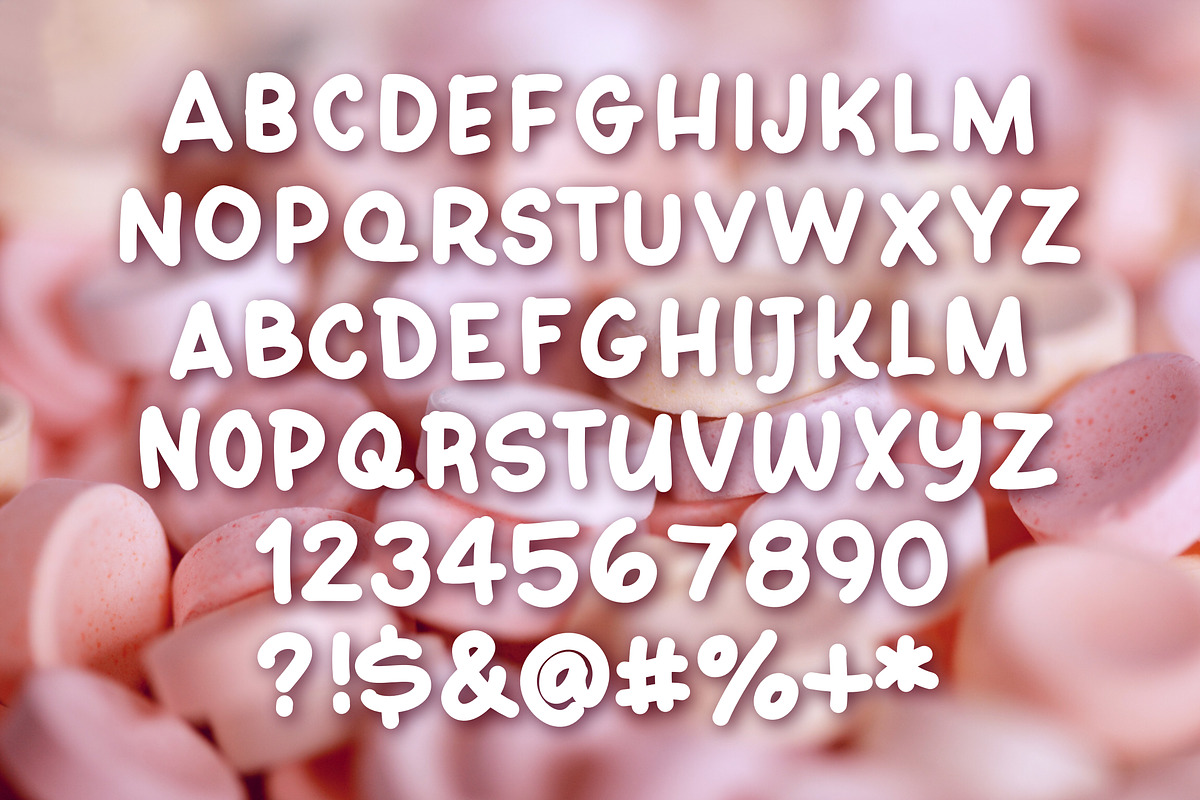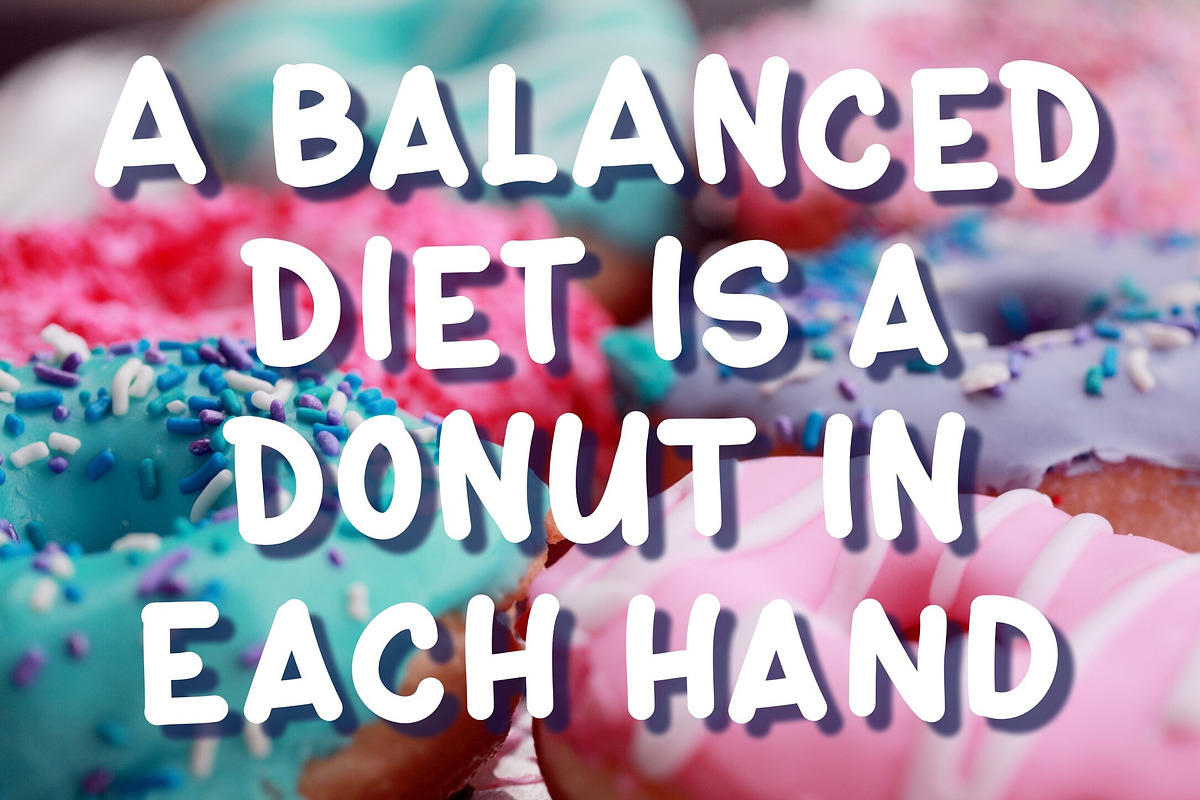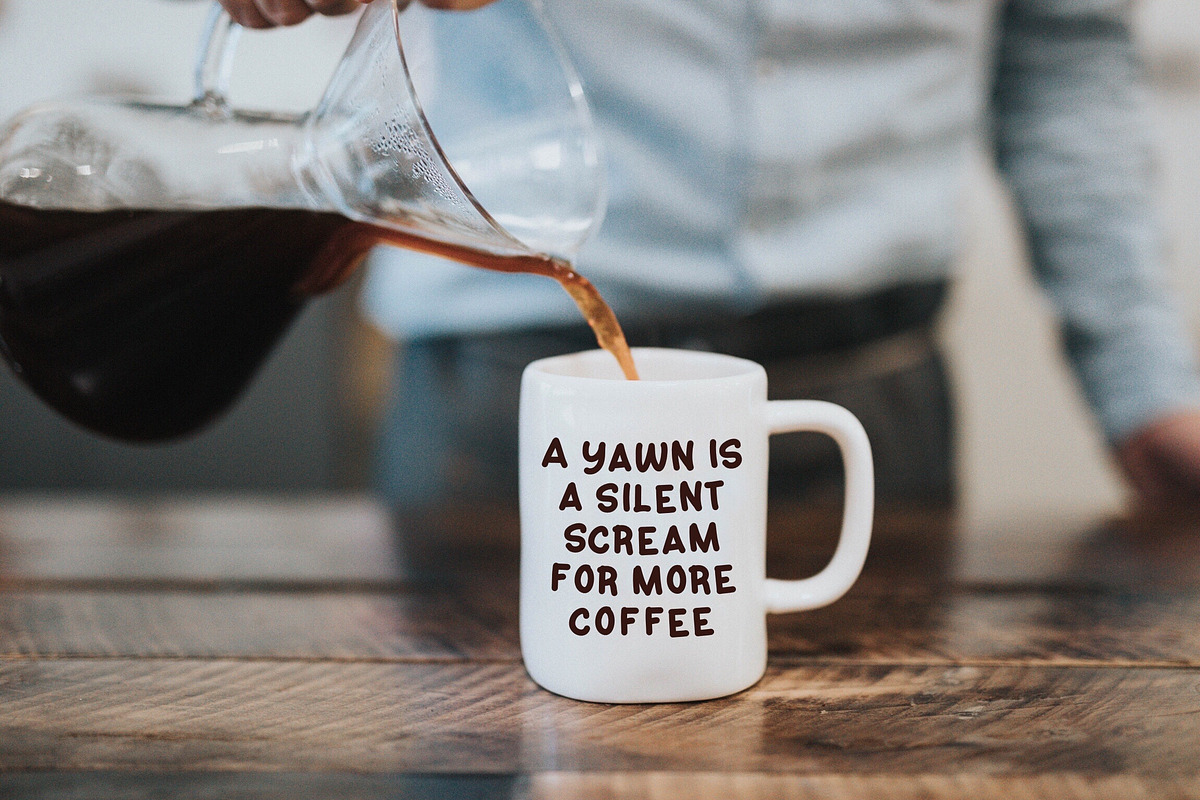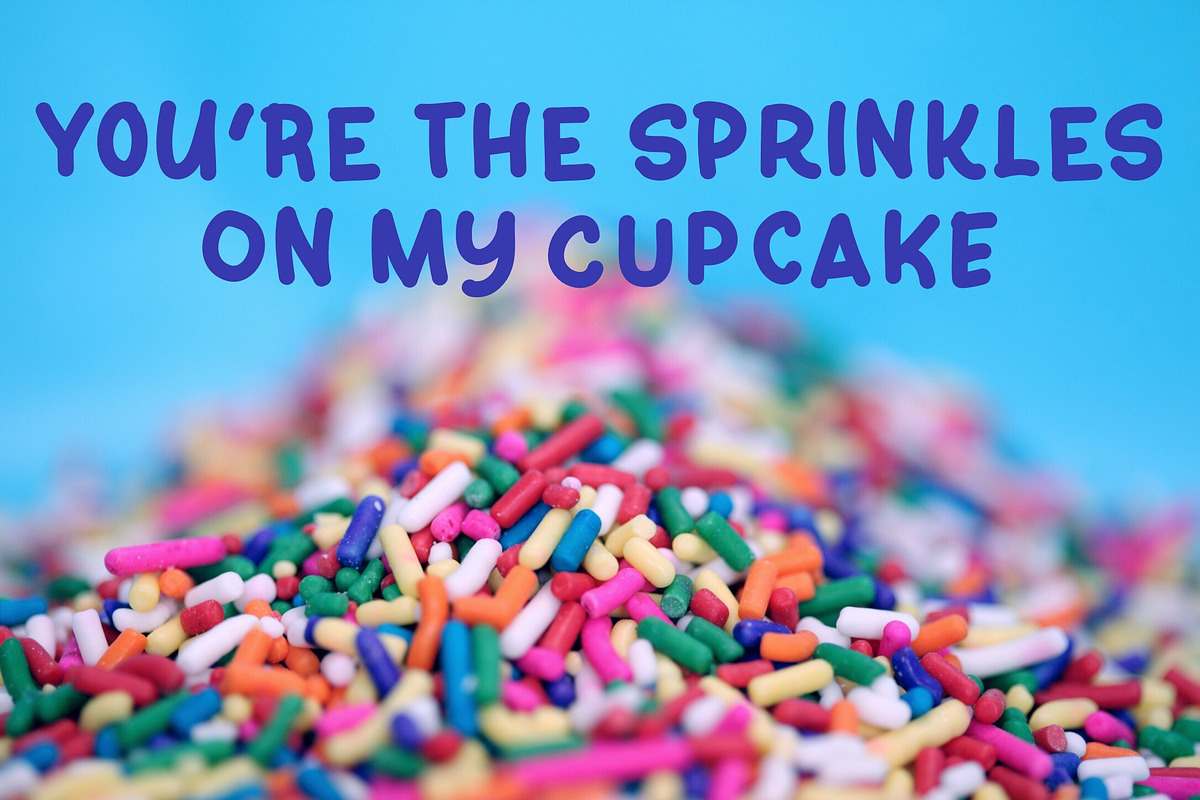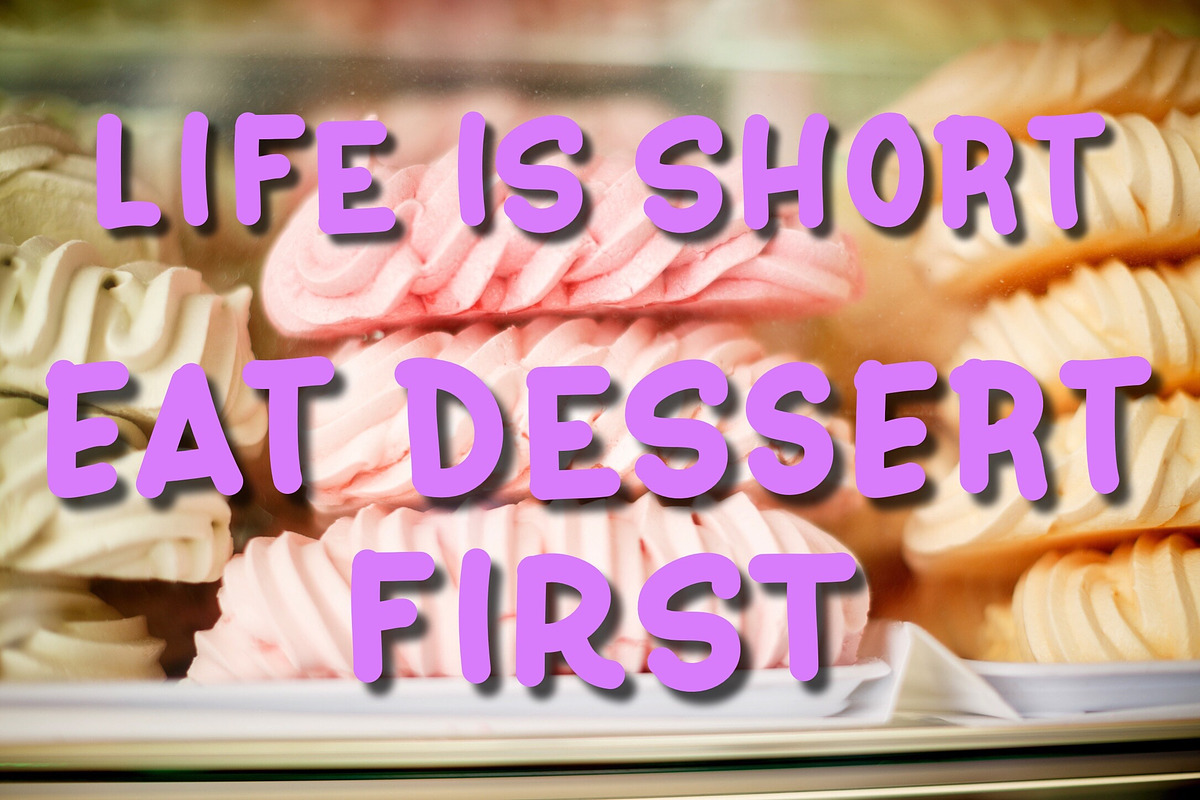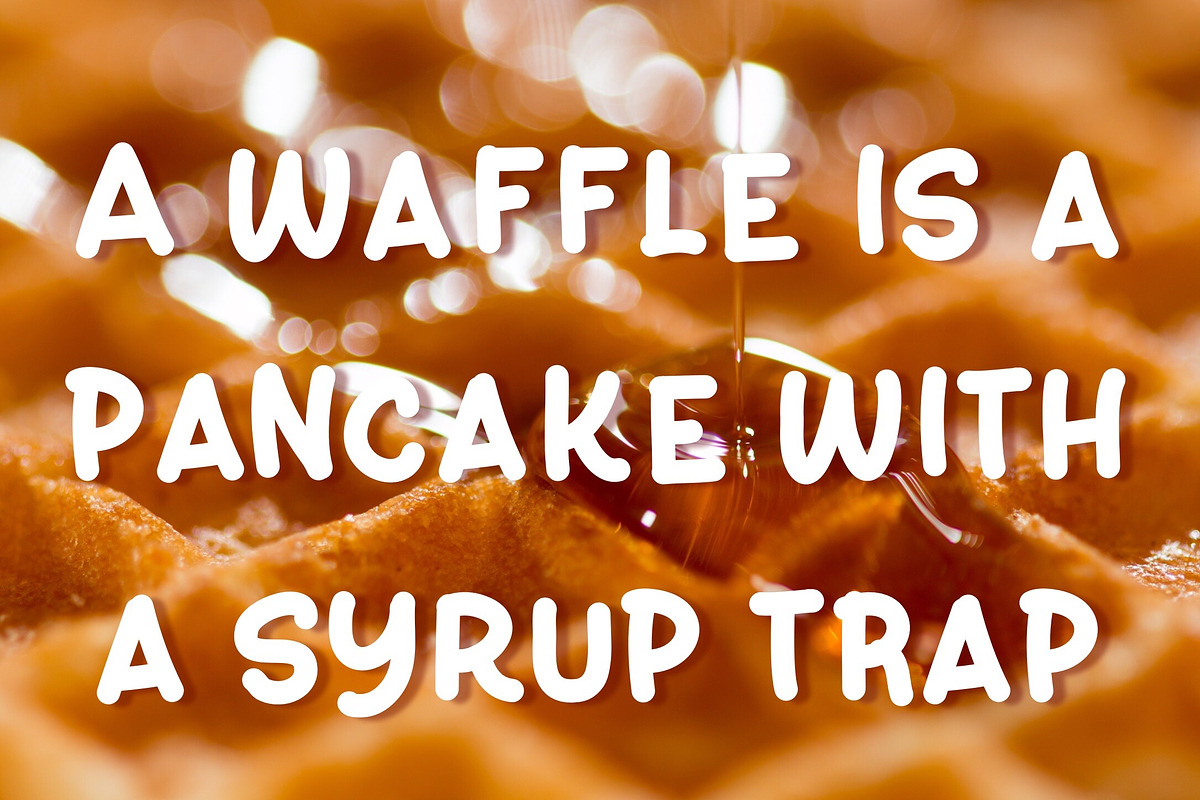
Sugar Babe hand-lettered font
Sugar Babe is a fun hand-lettered font, great for creating cards, quotes and more. This unique font is thick and juicy, like a tasty treat, adding more personality to your projects.
Sugar Babe hand-lettered font by Alexis Gentry fits naturally into Branding, posters, packaging, typography.